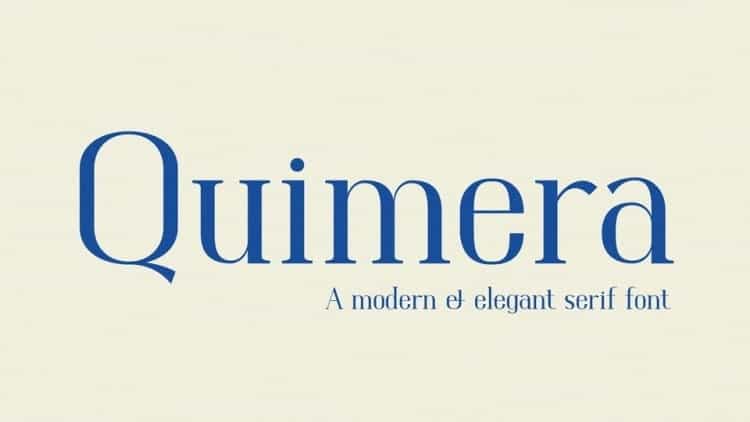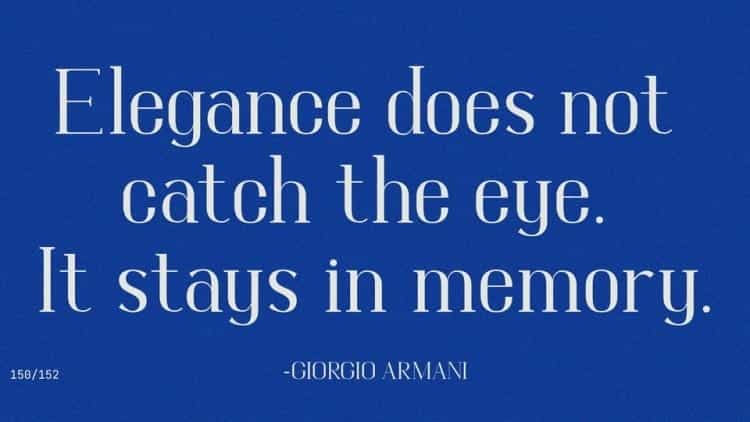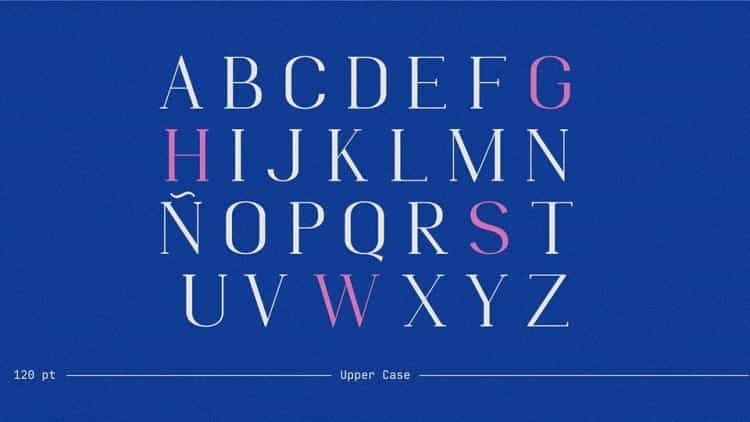
Quimera Font is a vintage and old style serif font with humanist and grotesk influences and contains both Latin and Cyrillic bases for the convenience of the designer. This font is perfect for Branding, Editorial Design, Product Design, Packaging Design and many other uses!